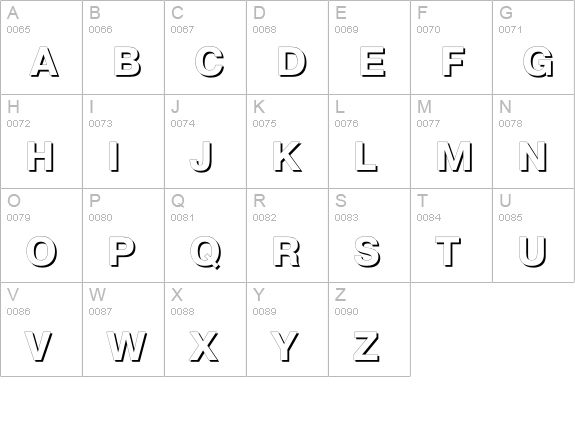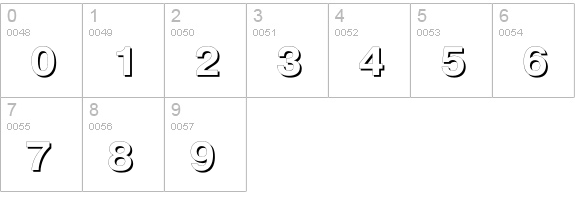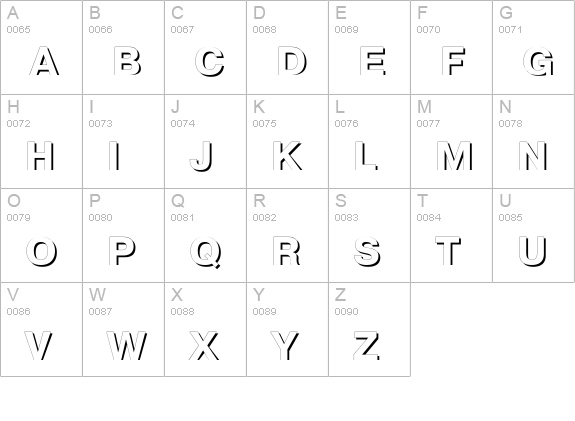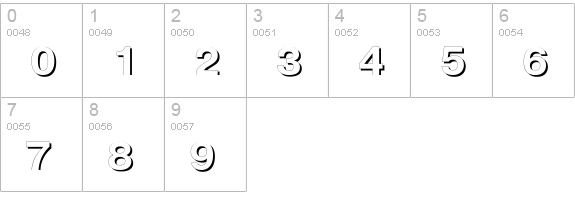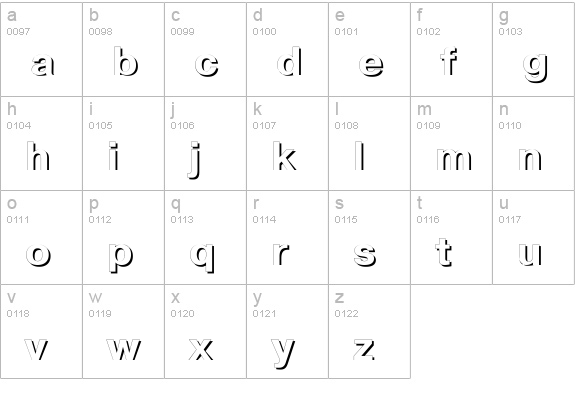
PT PragmaticaShadow Bold Cyrillic is a strong, high-contrast variant in the PT typeface family \xE2\x80\x94 well suited to headlines, attention-grabbing titles, and strong calls-to-action.
PT PragmaticaShadow Bold Cyrillic is a striking and dynamic font that exudes a sense of strength and sophistication. Its bold and sharp design makes it perfect for creating eye-catching headlines, logos, and branding materials. The Cyrillic characters add a touch of elegance and uniqueness to any project. What makes this font even more appealing is that it is available for free download at FontsMarket.com. This means you can easily add this versatile and powerful typeface to your collection without any cost. Don't miss out on the opportunity to elevate your designs with PT PragmaticaShadow Bold Cyrillic - download it today and unleash your creativity!